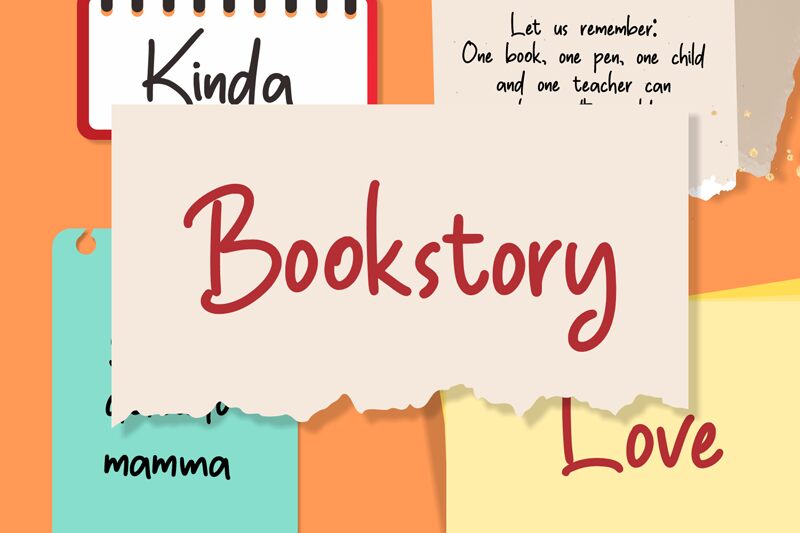
Bookstory, the charming semi-light handwritten font designed by Mozatype, is perfect for a wide range of projects. Its whimsical style and delicate strokes make it ideal for creating invitations, greeting cards, and other stationery items. It could also be used for book covers or editorial designs that require a touch of personality. With its legibility and readability, Bookstory is an excellent choice for branding projects or website headers that need to stand out. The semi-light weight adds to its versatility by allowing for easy pairing with bolder fonts or adding emphasis to specific words or phrases. Let Bookstory add a touch of warmth and character to your next project!